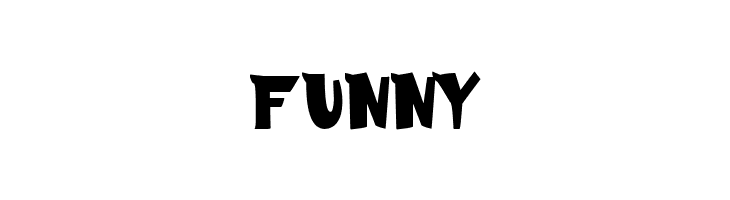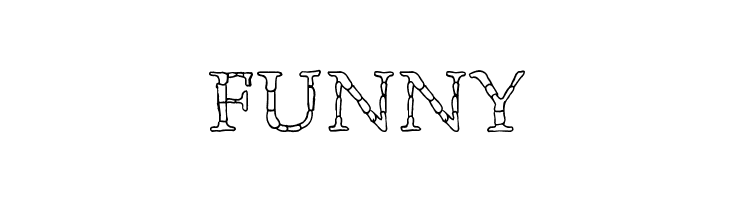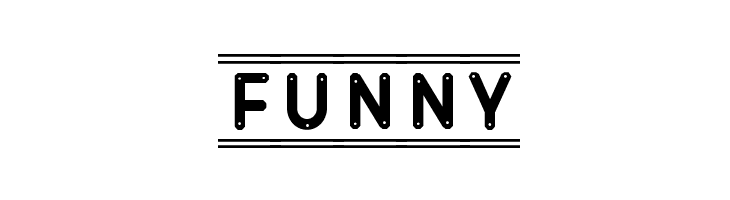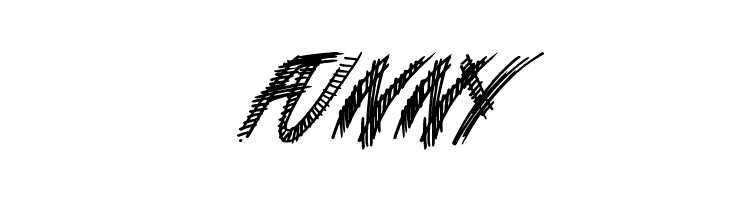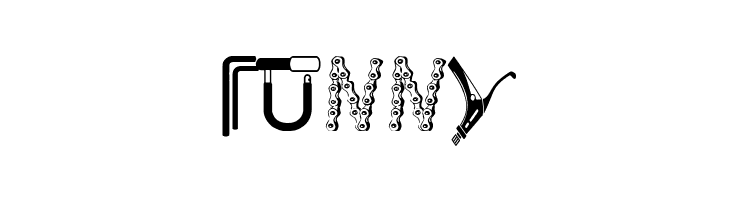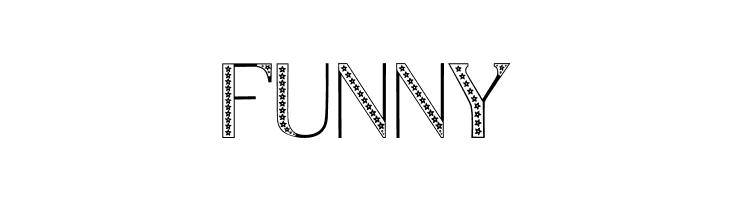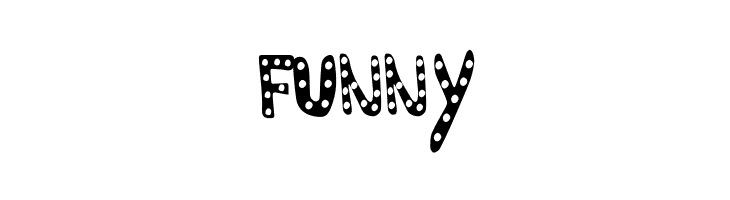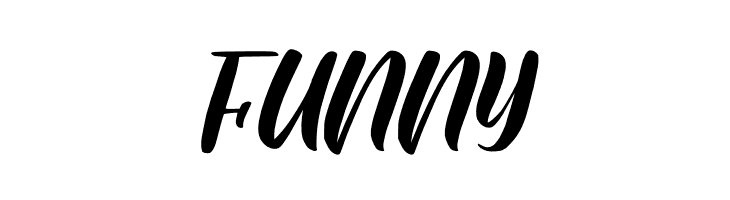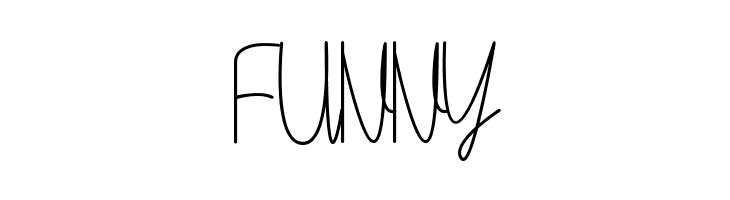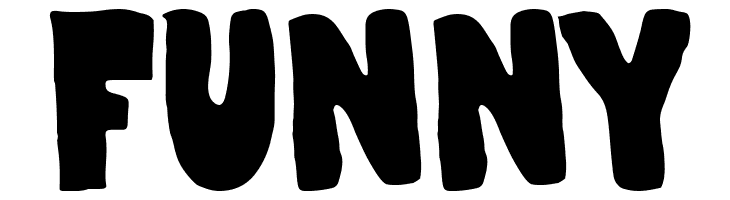
A playful and elegant script font with smooth, flowing lines and a handwritten appearance.
A bold, decorative font with a checkerboard pattern and 3D effect.
A bold, decorative font with a checkerboard pattern and thick outlines.
A bold, decorative font with butterfly designs integrated into each letter.
A bold, geometric font with a strong, modern presence.
A bold, decorative font with playful, whimsical elements.
A bold, elegant script font with flowing, connected characters.
Playful, bold, rounded hand-drawn font.
A bold, modern font with geometric lines and consistent stroke width.
A decorative monogram font with characters enclosed in circles, offering a modern and elegant style.
A decorative font with a mosaic-like, handcrafted appearance.
A decorative font inspired by bicycle and mechanical parts, ideal for thematic displays.
A playful, monster-themed font with bold, cartoonish characters.
A playful, dinosaur-themed font with bold, patterned characters.
A playful, dinosaur-themed decorative font with bold, rounded characters and integrated footprints.
A playful, dinosaur-themed decorative font with bold, rounded characters.
A playful, monster-themed font with bold, rounded characters and quirky details.
A bold, hand-drawn font with jagged, textured strokes and an edgy appearance.
A playful, monster-themed decorative font with quirky details.
A bold, decorative font with fantasy-themed elements and intricate designs.
A playful, bold font with irregular, hand-drawn shapes and whimsical charm.
A decorative, cartoon-style font made of cute monster illustrations.
A bold, playful font with dotted patterns and geometric shapes.
A bold, geometric font with a modern, industrial design.
A playful, polka-dotted decorative font with bold, rounded characters.